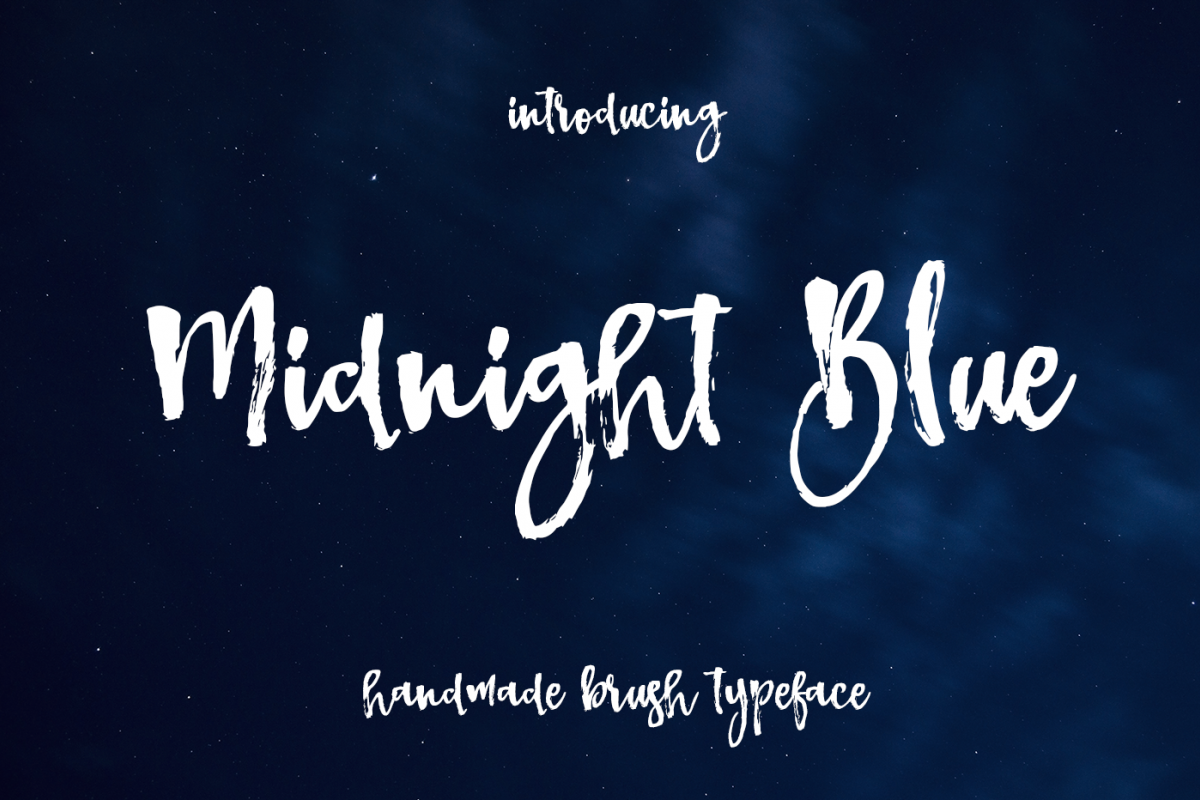
Midnight Blue
Awesome brushstrokes and different connection style... Here's the Font Midnight Blue ... It is a hand-made font which you can make typographies and your own unique masterpieces.
GREAT FOR
-Characteristic company logos -Blog pages -Logo of brands -Projects you need to utilize a premium font -The projects that require a font including lots of alternates.